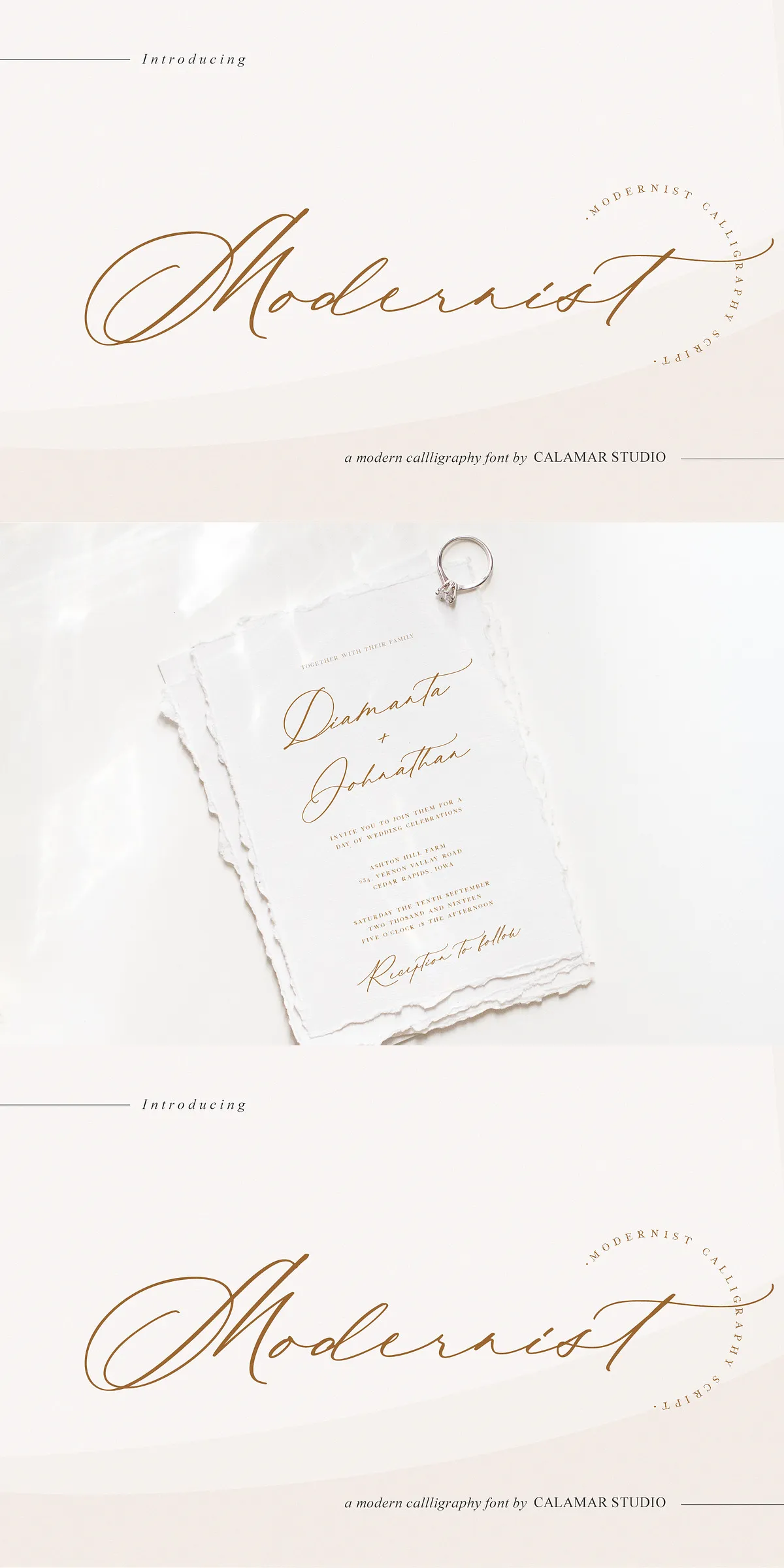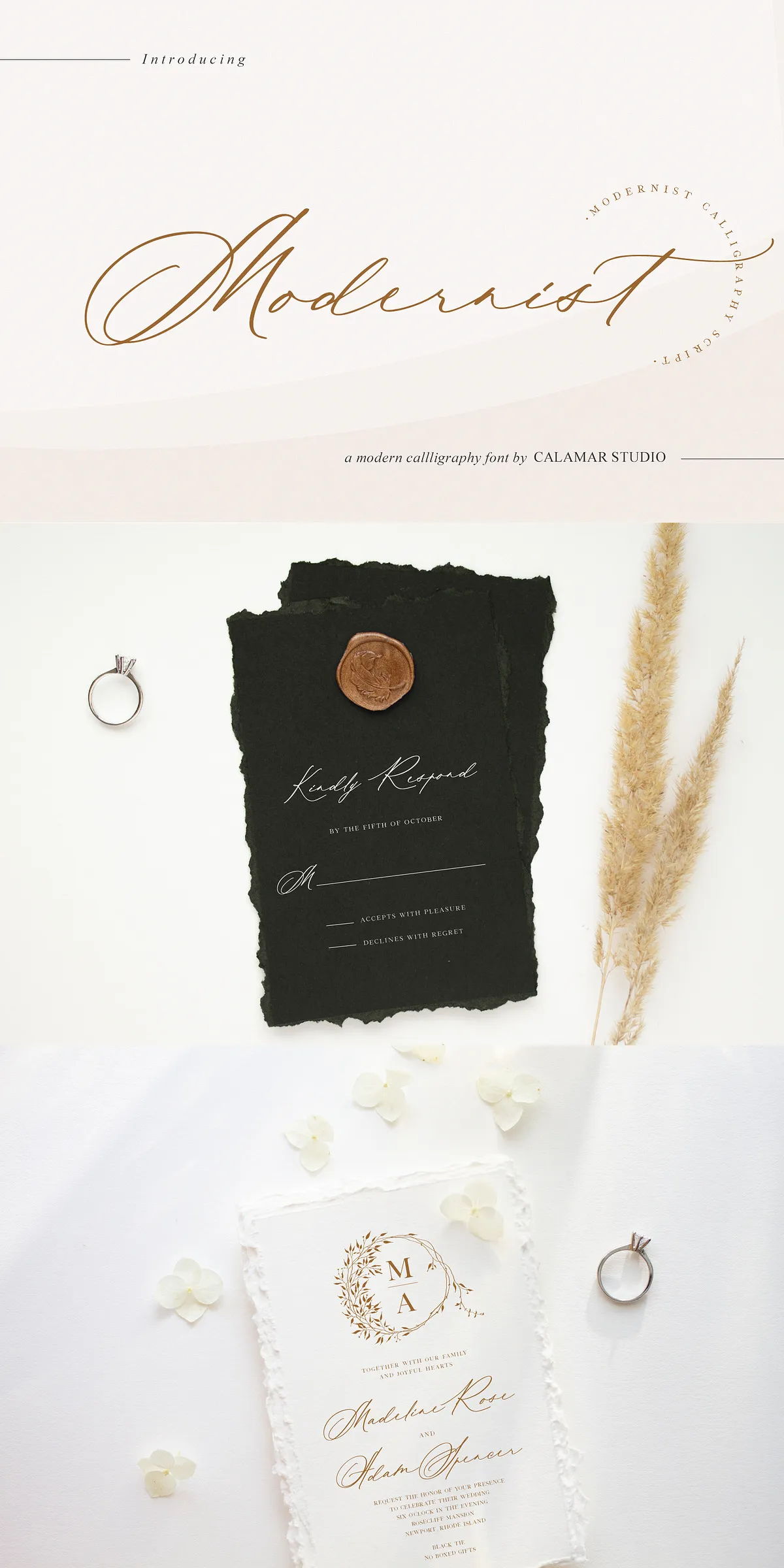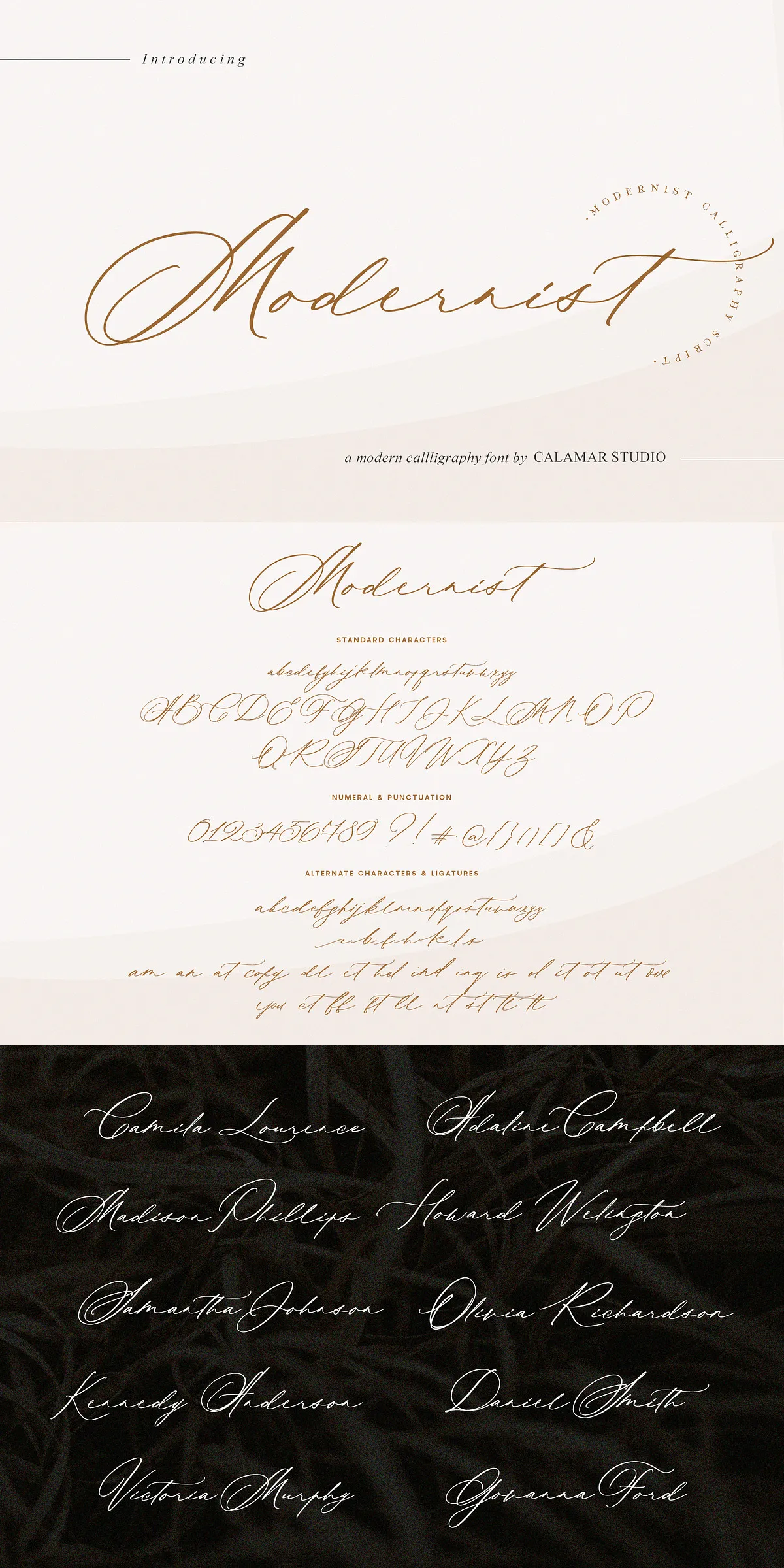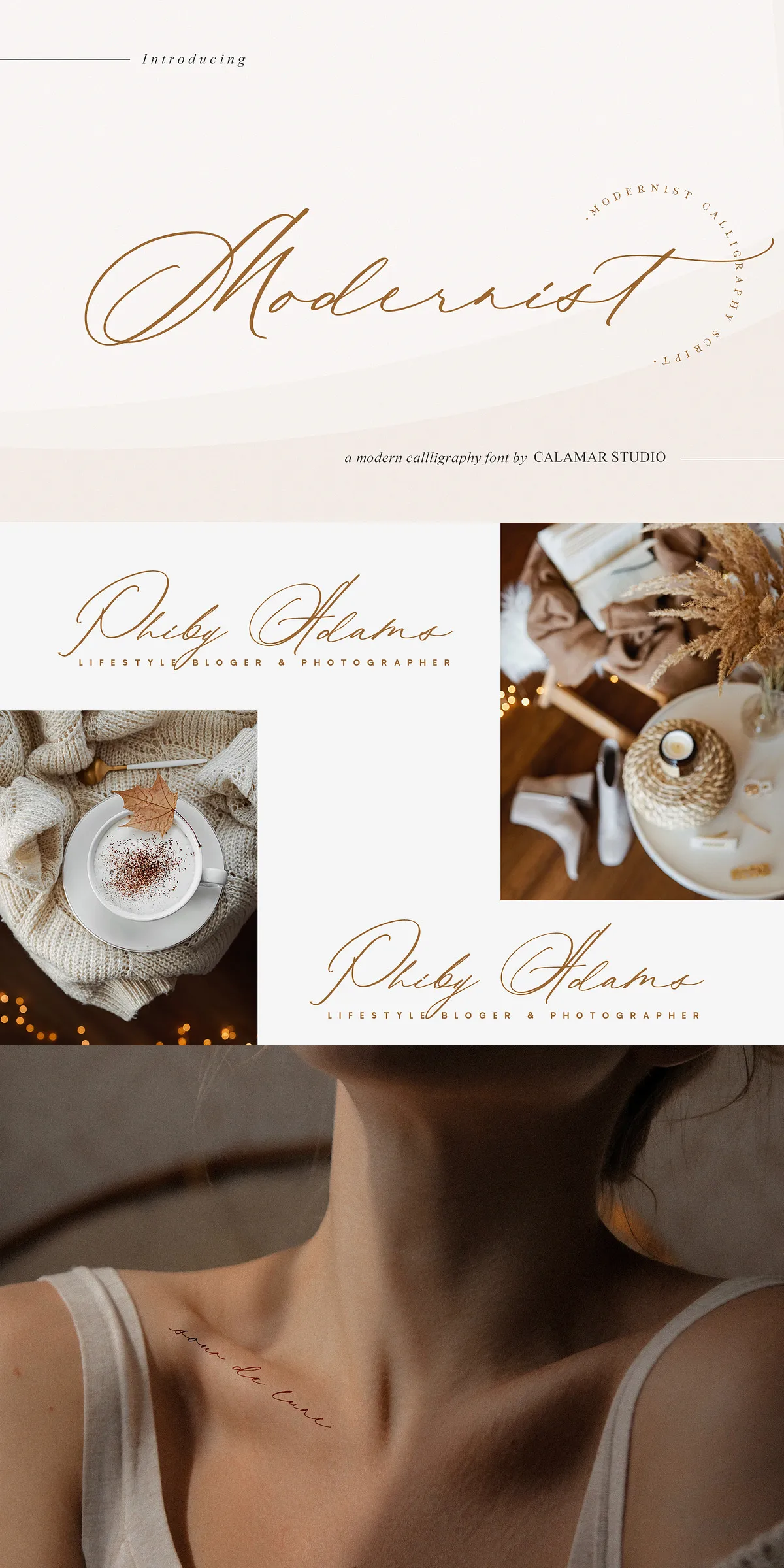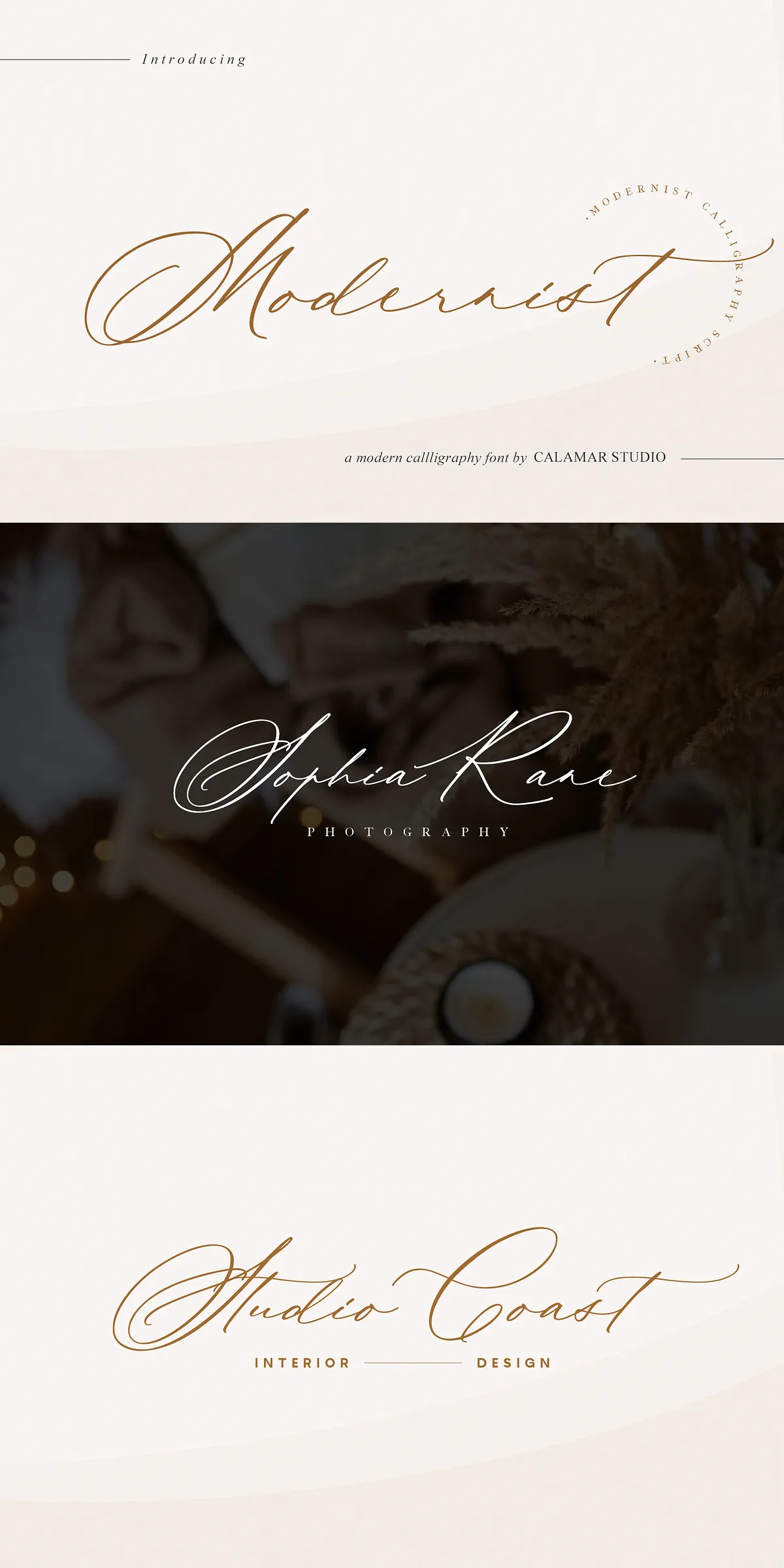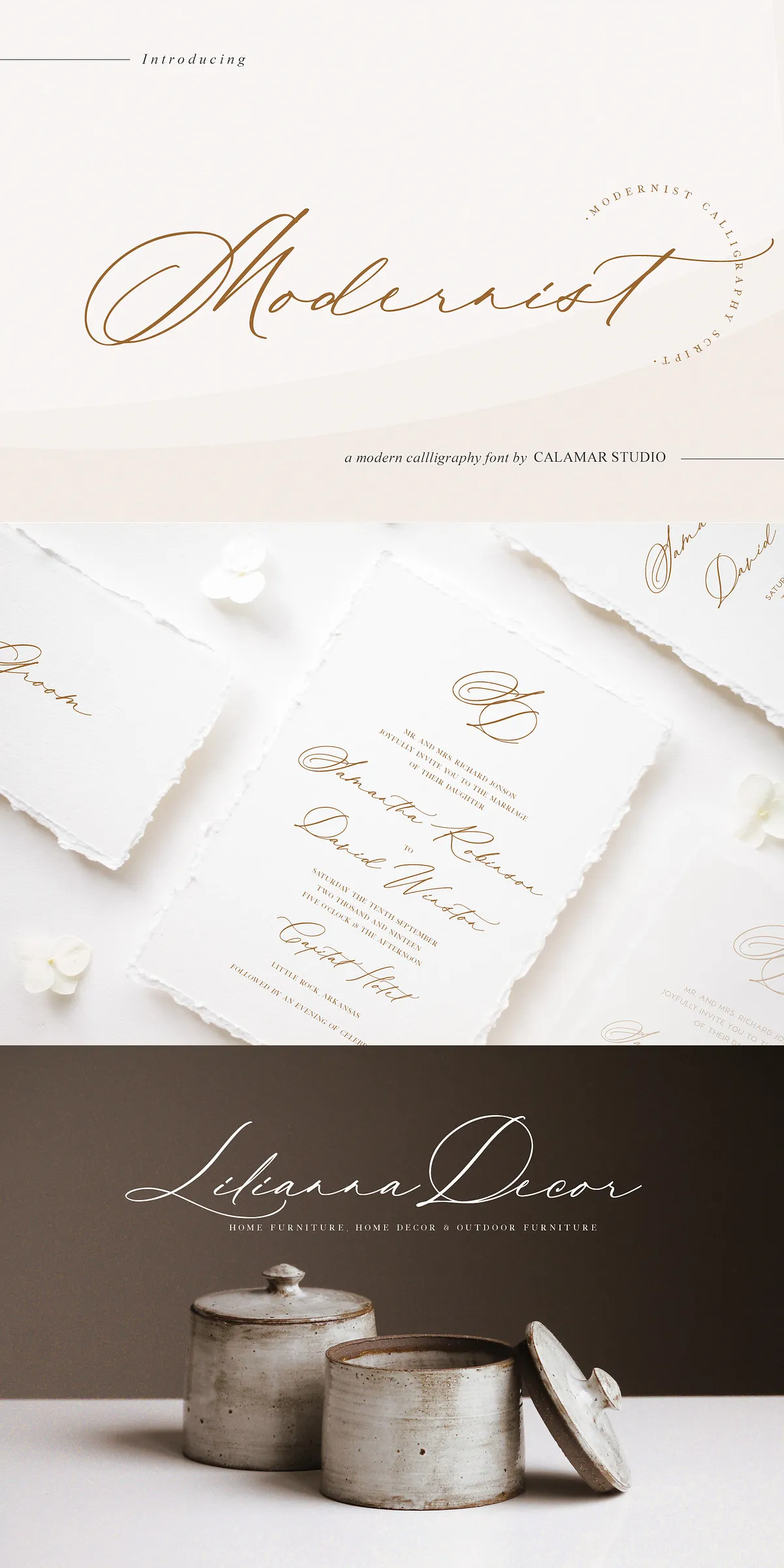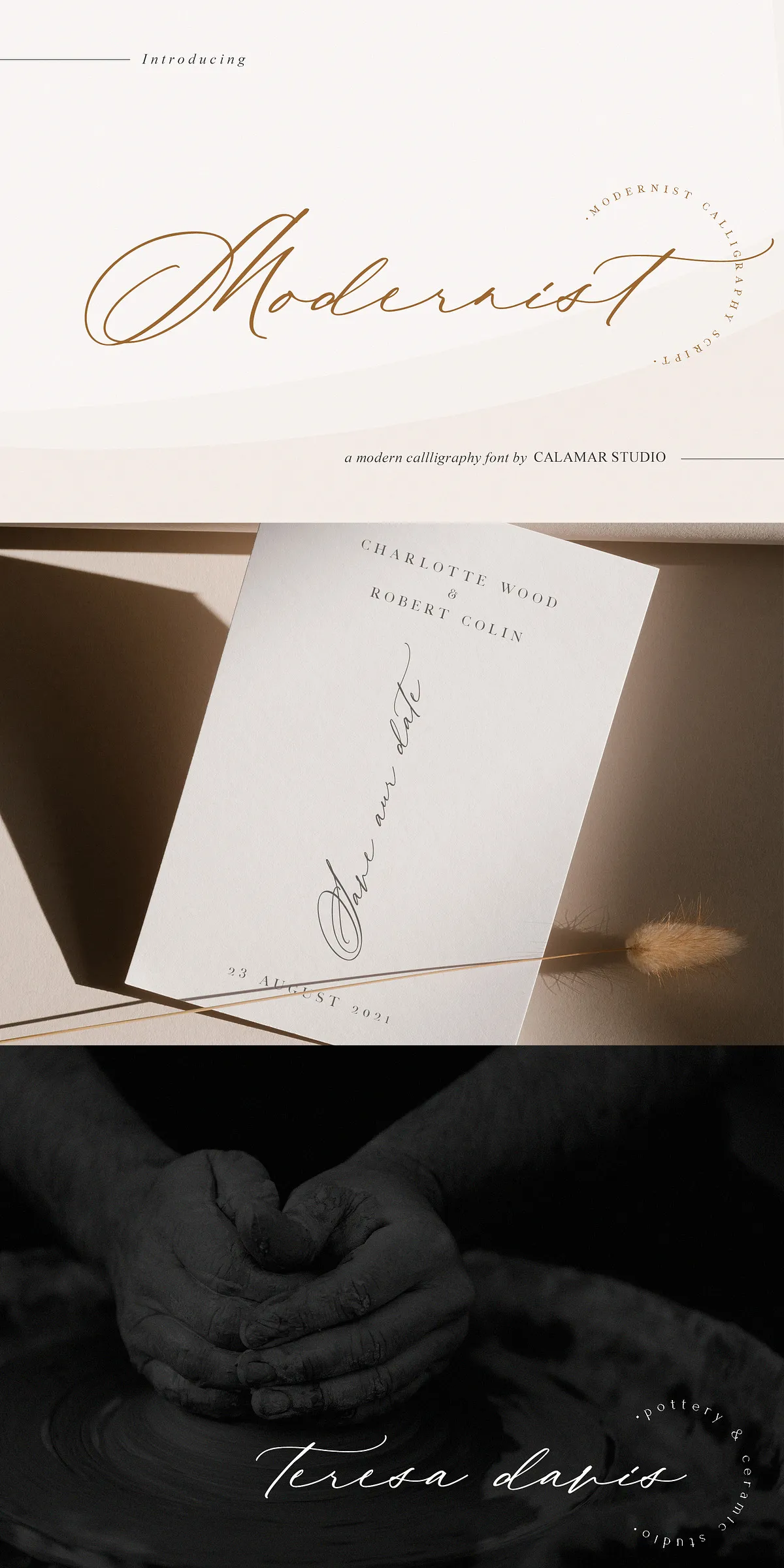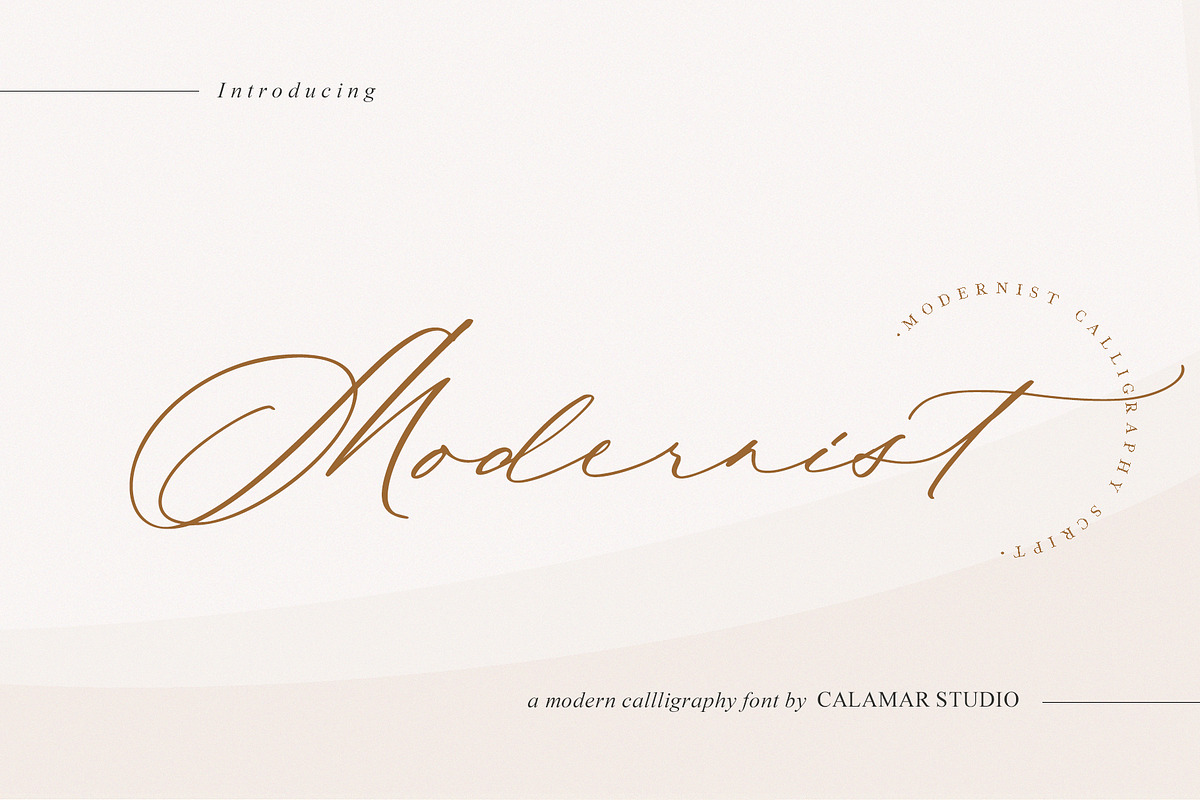
Step into the future of handcrafted typography with Modernist Font — a bold, contemporary calligraphy typeface engineered for designers who value precision, grace, and feminine sophistication. Crafted for high-impact visual storytelling, Modernist delivers expressive, flowing letterforms that elevate wedding stationery, branding campaigns, and digital content with effortless style.
Why Modernist Is the Ultimate Choice for Contemporary Design
In a world saturated with generic fonts, Modernist cuts through the noise with a refined balance of modern minimalism and authentic calligraphic charm. Its fluid strokes, elegant counterforms, and naturally balanced spacing create a sense of motion and emotion — perfect for projects that demand both clarity and beauty. Whether you’re designing a modern wedding suite or launching a boutique brand, Modernist adds a premium feel that speaks volumes without saying a word.
Premium Features for Professional-Grade Design
Modernist isn’t just a font — it’s a complete typographic toolkit designed to empower your creativity with deep customization. Every character has been thoughtfully optimized to support natural, hand-drawn aesthetics:
- Full Uppercase & Lowercase Alphabet – Comprehensive coverage of letters, numerals, and punctuation for flawless layouts.
- Natural Ligatures – Seamless connections between letters create fluid, organic flow, mimicking real calligraphic writing.
- Stylistic Alternates for Lowercase Letters – Access multiple versions of key letters (like ‘a’, ‘c’, ‘e’, ‘f’) to vary tone and rhythm in your compositions.
Perfect For Feminine Branding, Weddings & Editorial Design
Modernist thrives in projects that rely on emotional resonance and visual delicacy. Its smooth curves and gentle pressure variations bring warmth and intimacy to any design:
Wedding Invitations & Save-the-Date Cards
Create breathtaking wedding suites that feel personal, intimate, and exquisitely handcrafted. From minimalist announcements to lush, illustrated invites, Modernist adds quiet luxury and emotional depth to every word.
Feminine Brand Identity
Build a strong, cohesive brand aesthetic for boutiques, spas, lifestyle influencers, and beauty brands. Its modern yet soft personality resonates with contemporary women and appeals to audiences seeking authenticity and style.
Editorial & Social Media Content
Use Modernist to craft eye-catching social media graphics, blog headers, quote cards, and digital banners with a curated, editorial quality. Its professional look ensures your content stands out in crowded feeds.